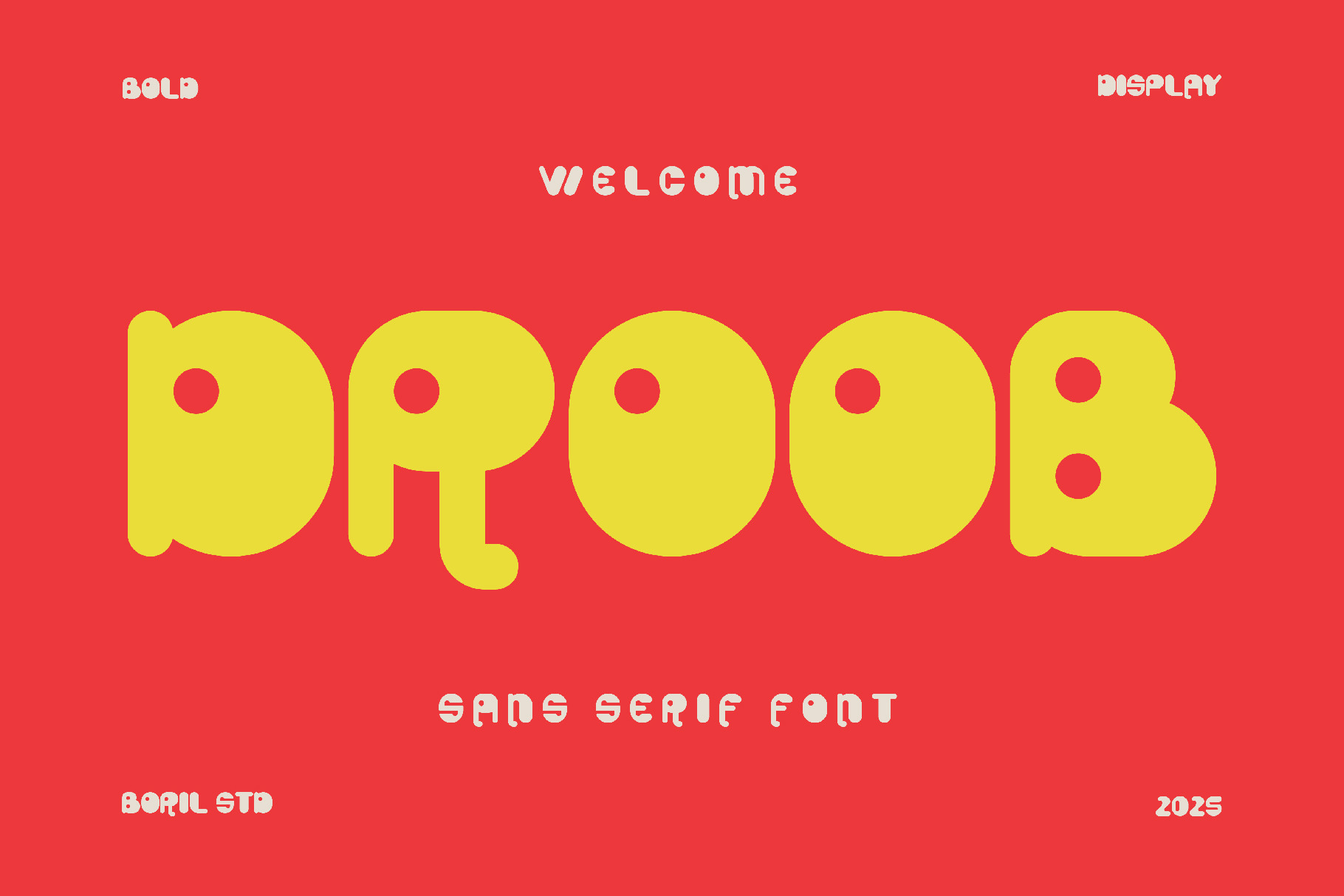
DROOB - Display Font
DROOB font is a round and playful display font with a unique geometric touch. Full and smooth letter forms, with rounded ends and sometimes with sharp cuts in some characters, give a friendly, modern, and experimental impression.